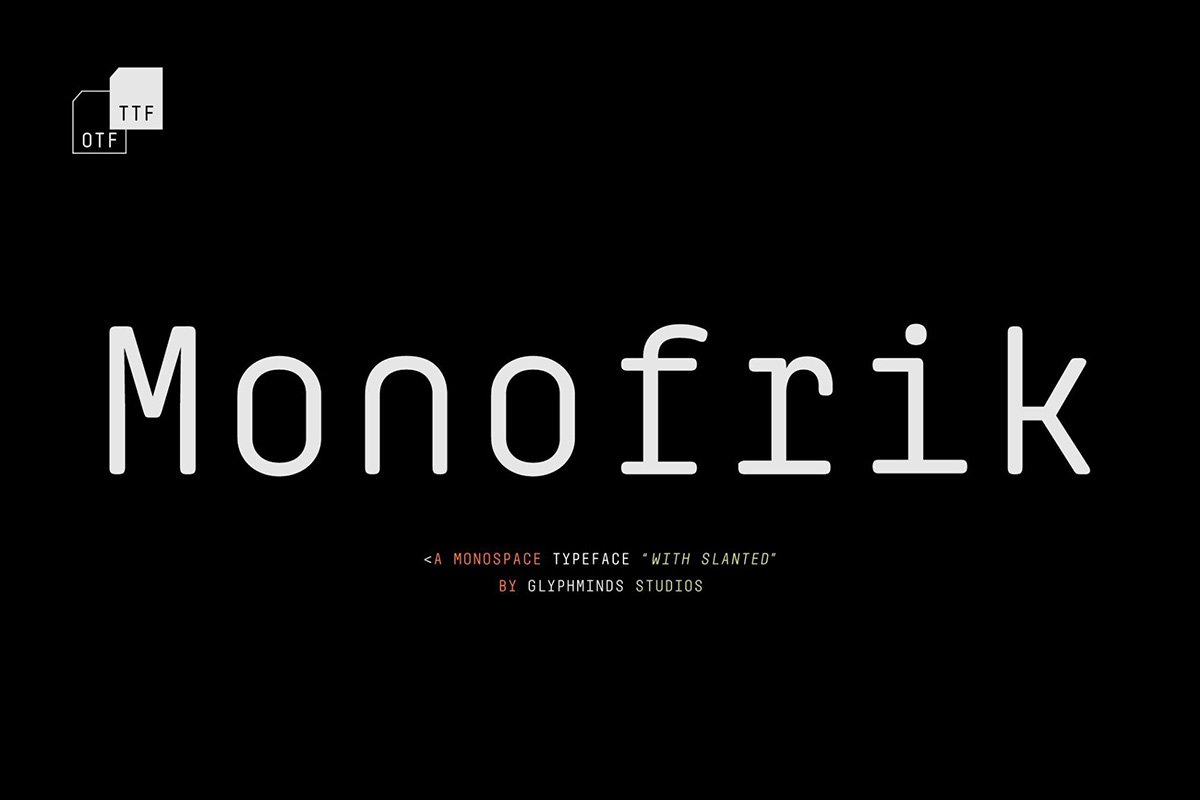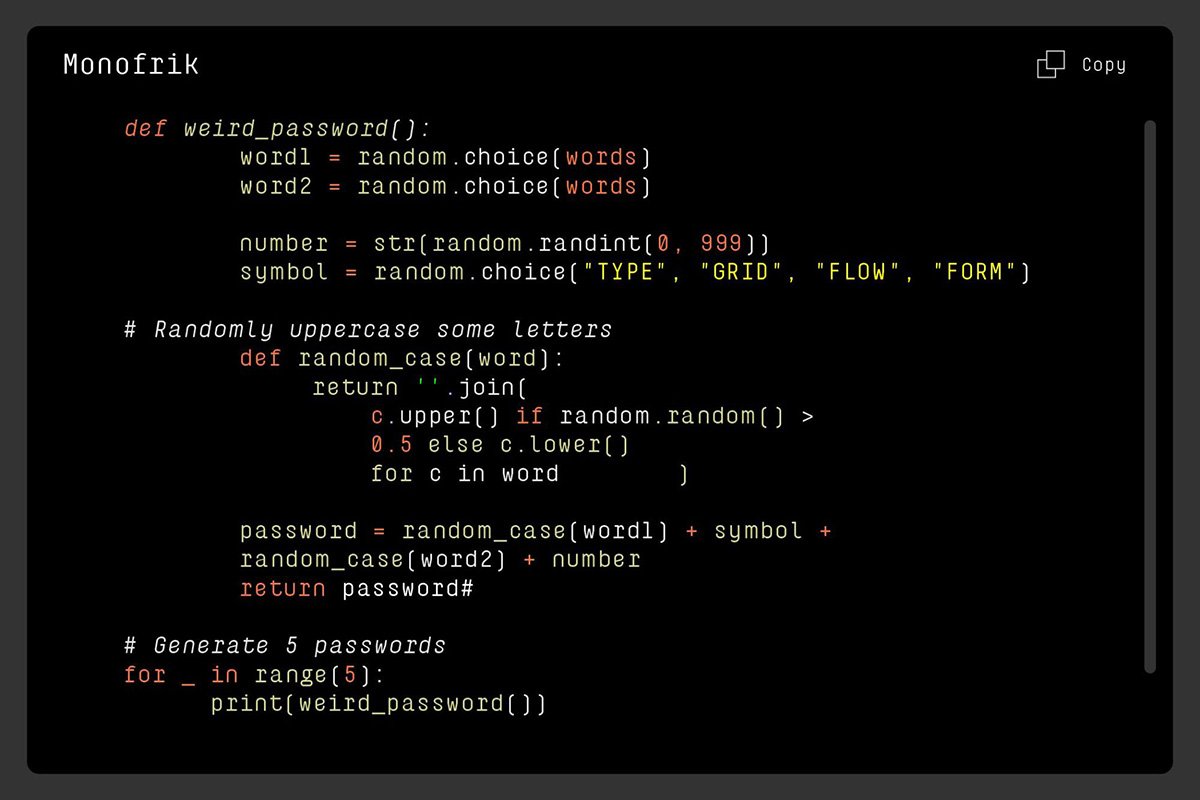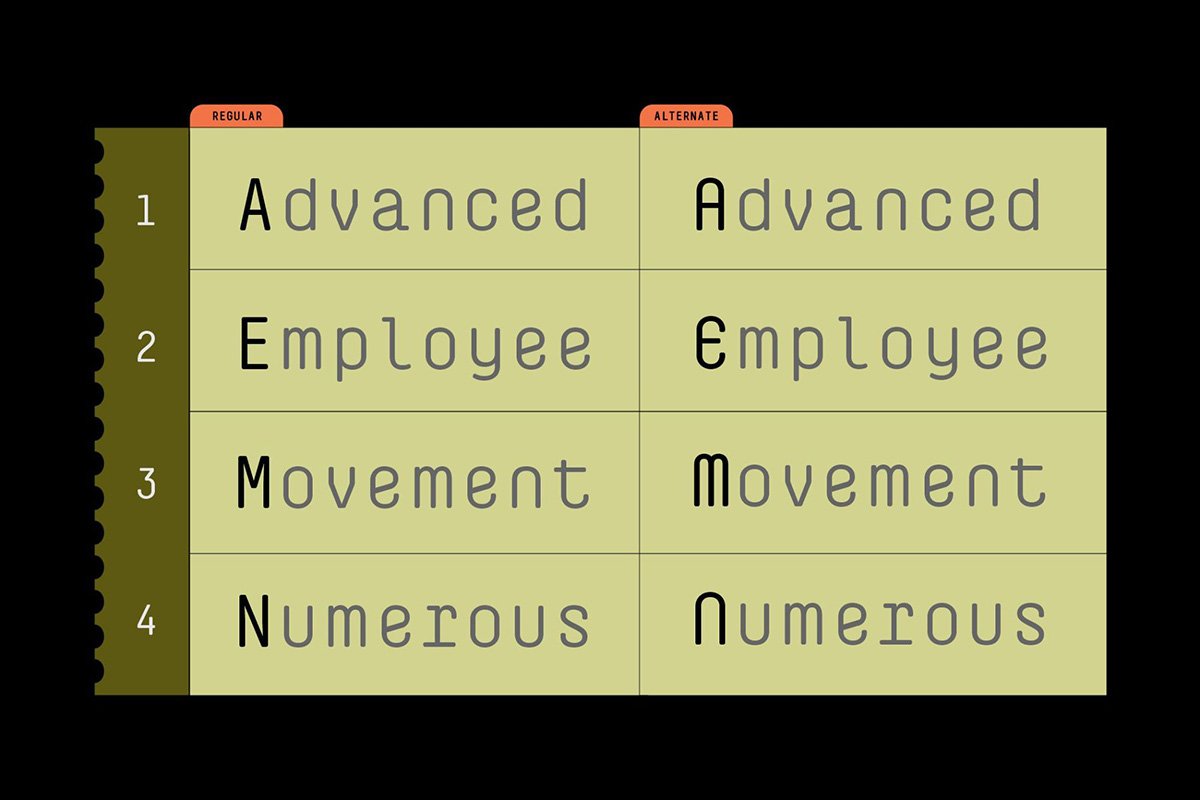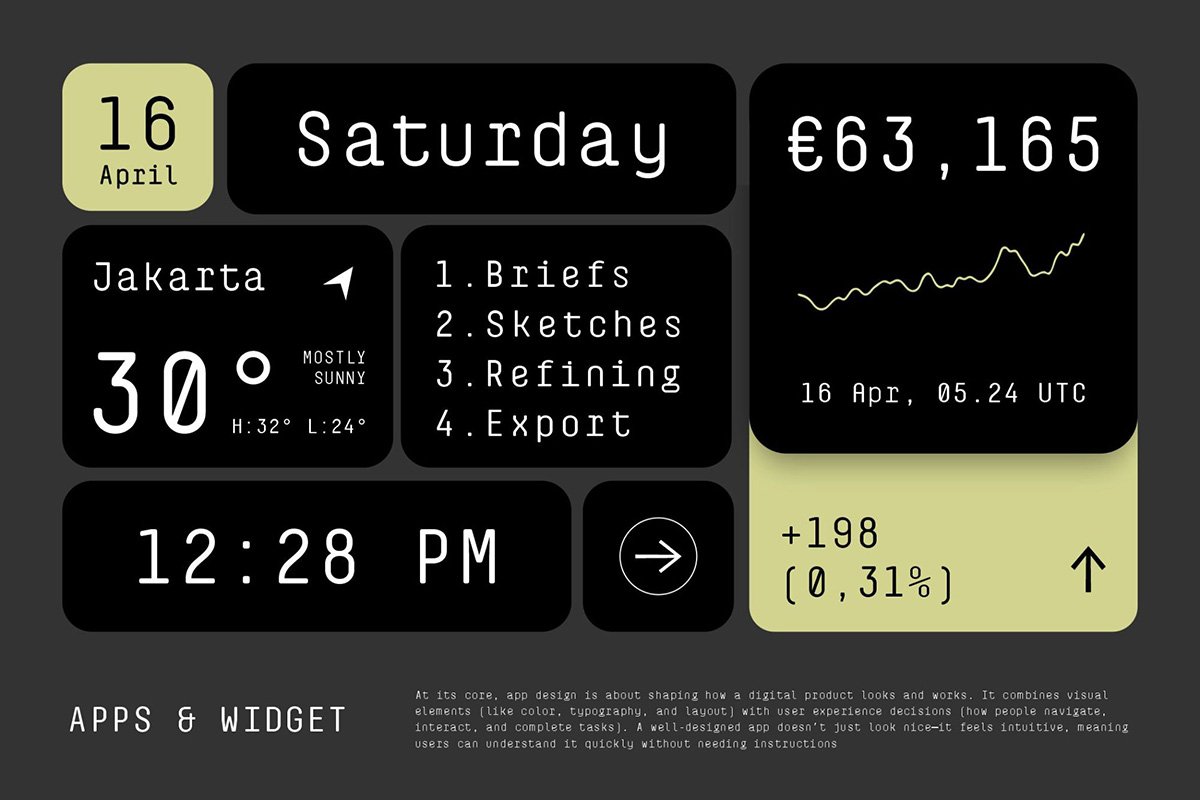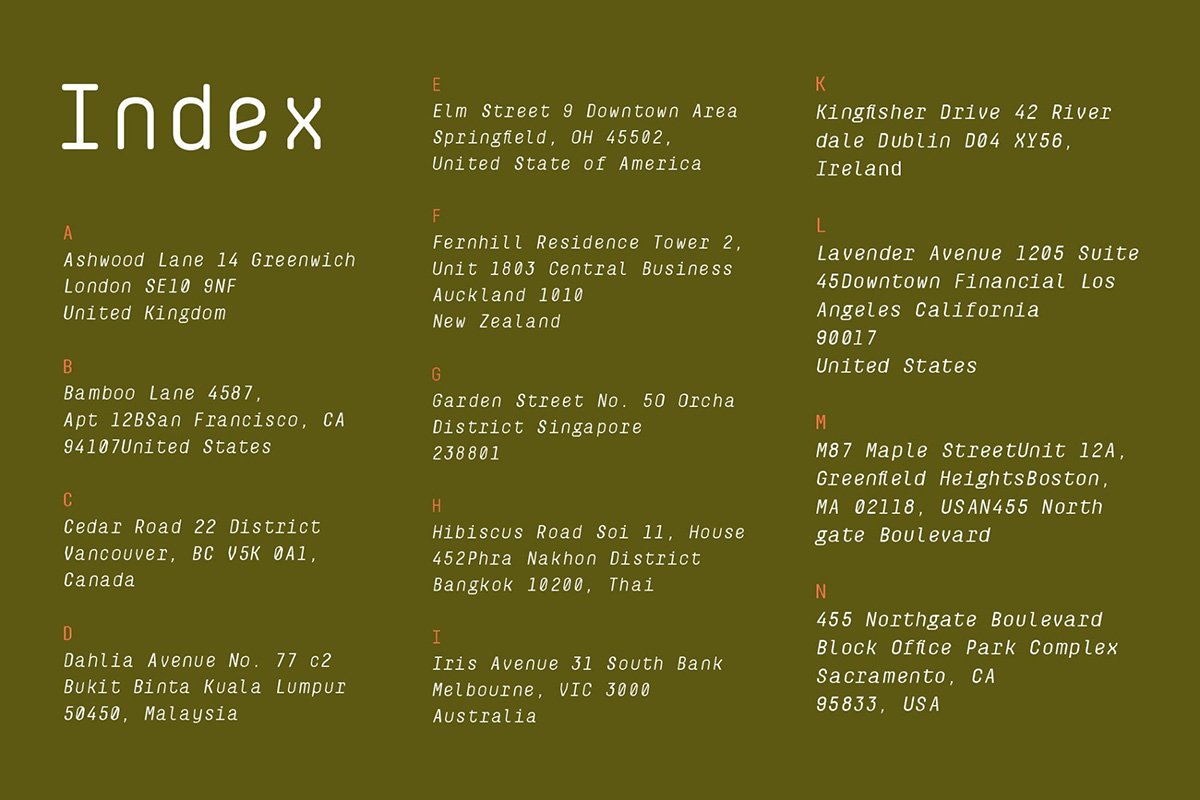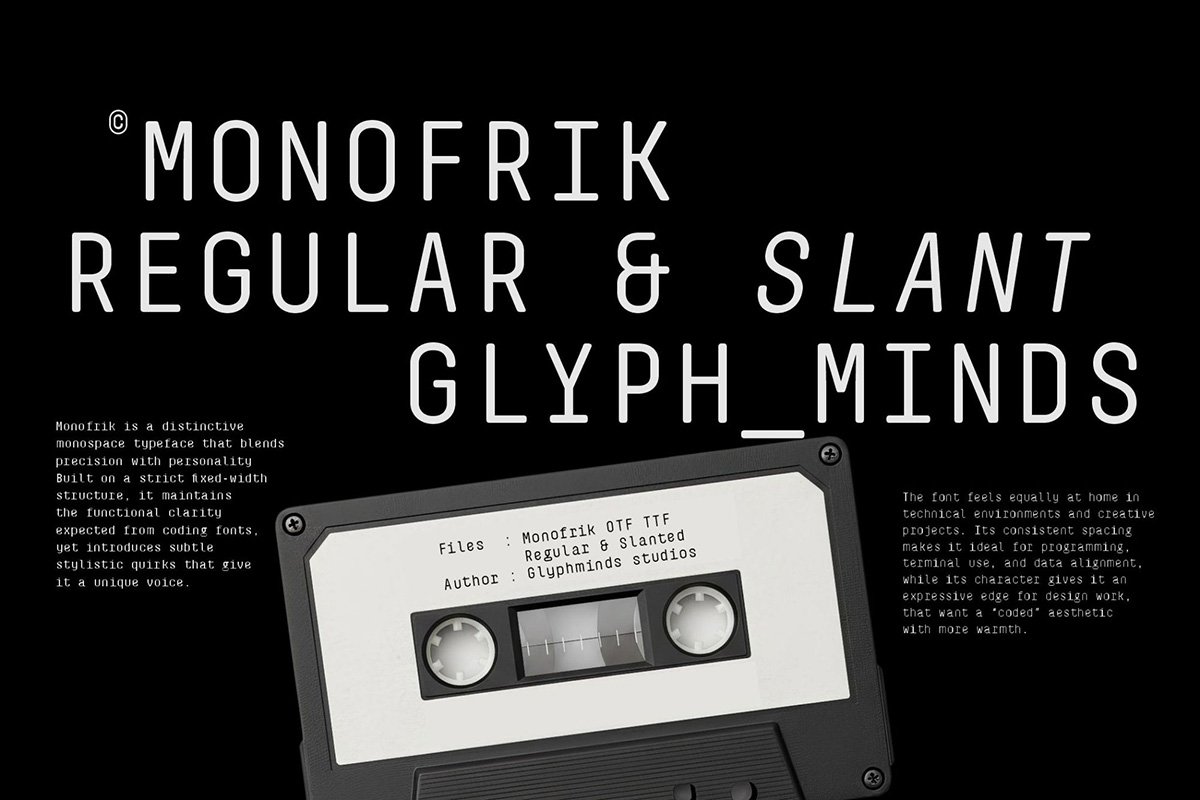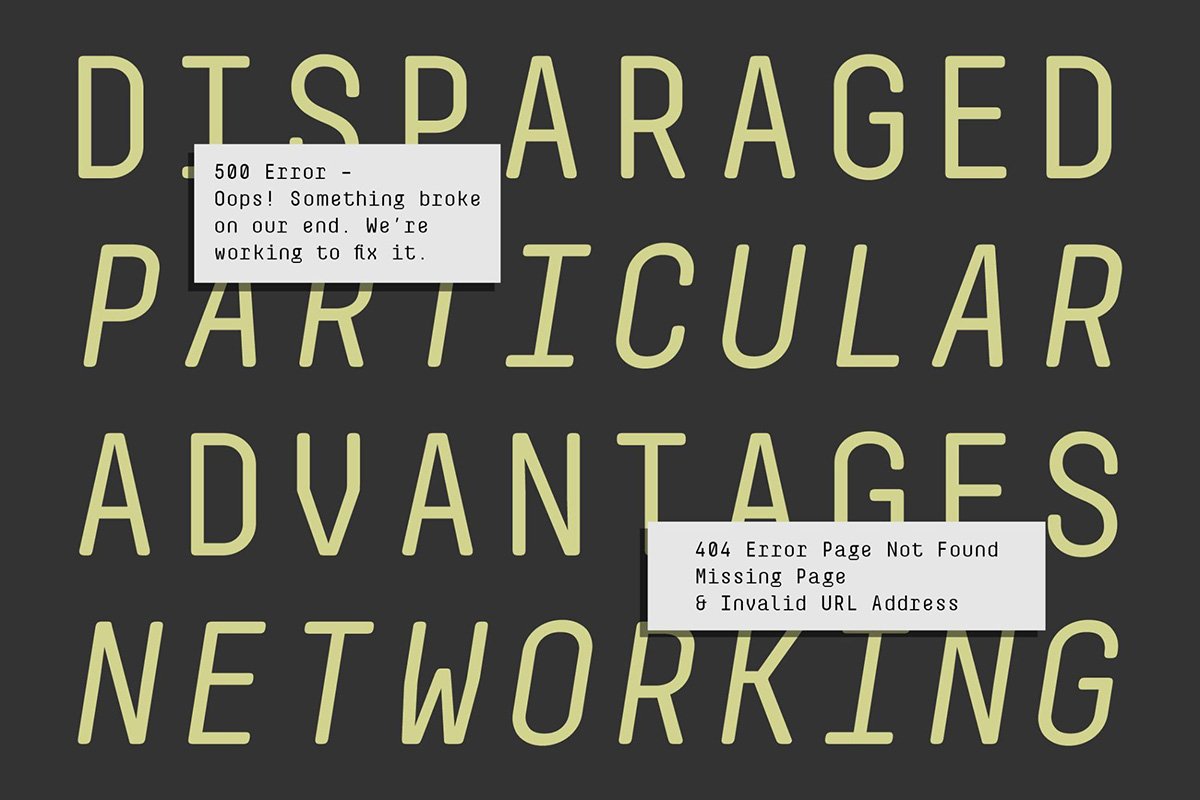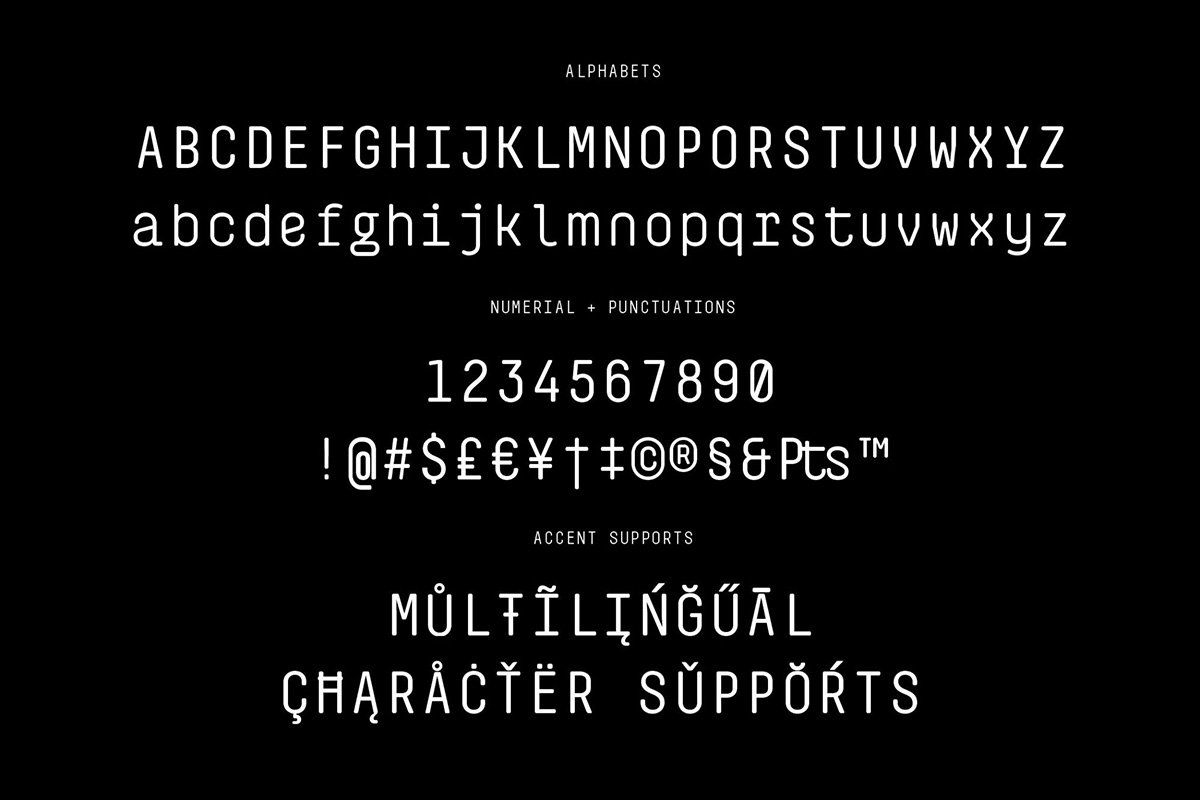
Monofrik Font is a modern monospaced typeface designed for creators who want clean structure with a unique twist. Built with precision and simplicity, it blends a technical coding style with smooth rounded details—making it perfect for branding, UI design, posters, tech projects, and editorial layouts. Whether you’re designing for a startup, building a developer portfolio, or crafting minimalist visuals, Monofrik delivers a professional and contemporary look that stands out without being overwhelming.